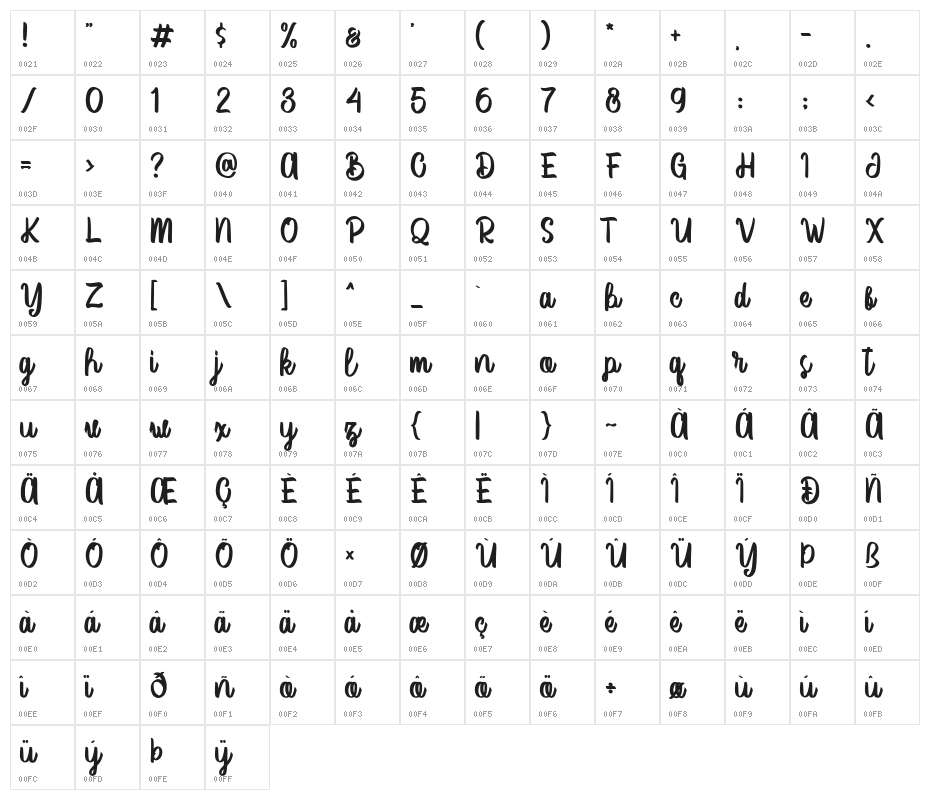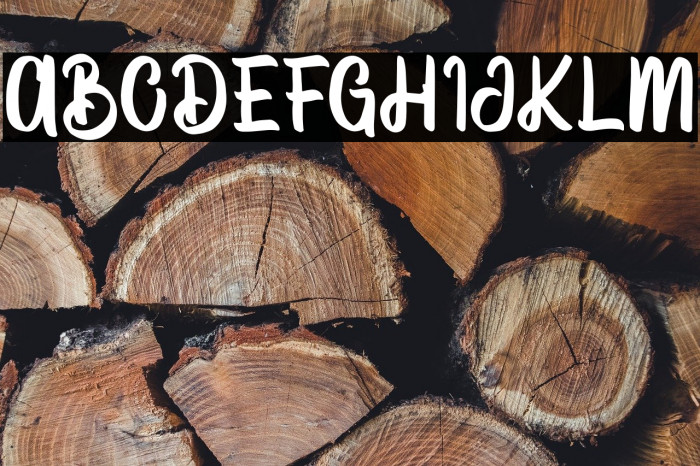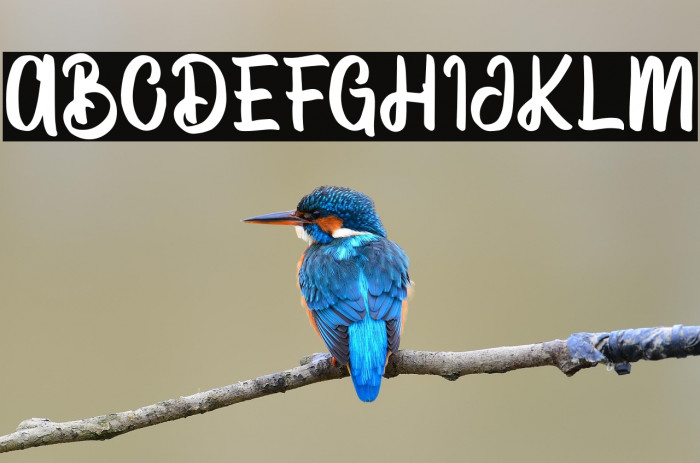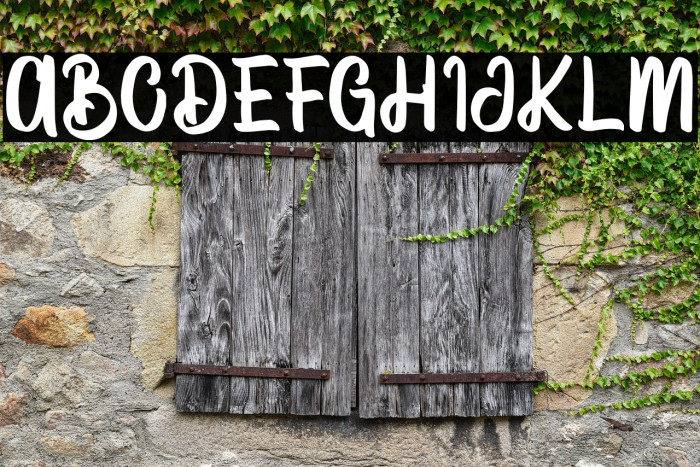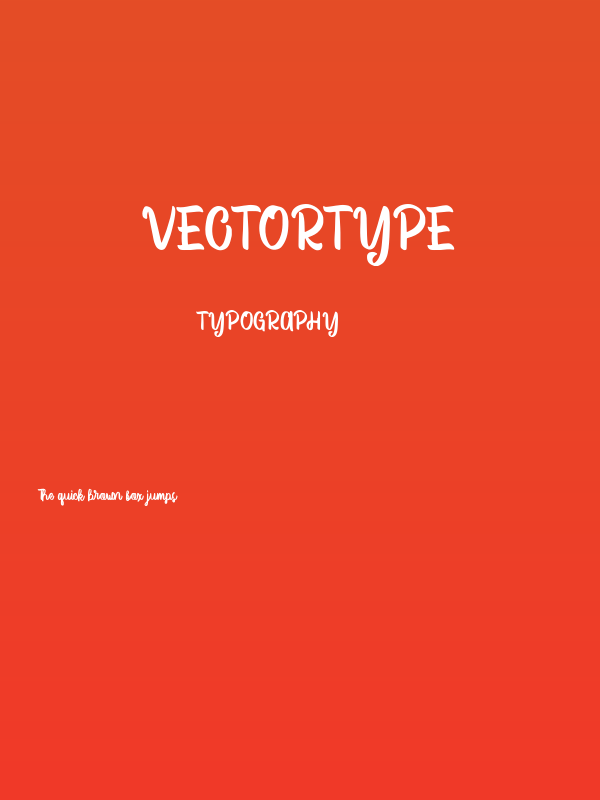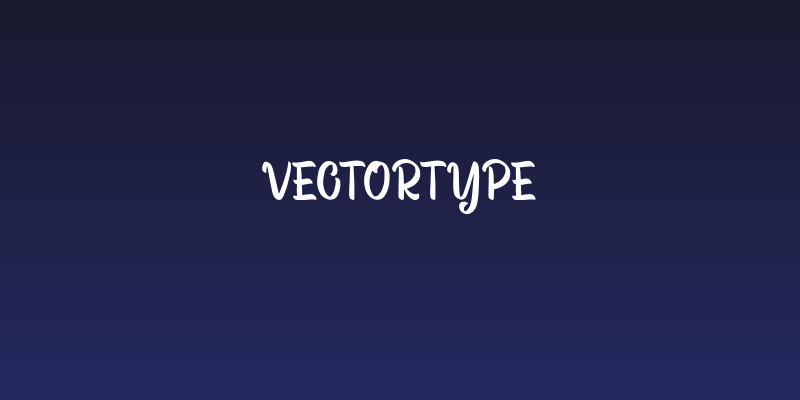
VectorType Font
VectorType Description
This font features a playful and bold handwritten style, characterized by its smooth, flowing curves and consistent stroke weight. The uppercase letters are slightly larger and more prominent, while the lowercase letters maintain a cohesive look with a slight slant, adding to the casual and friendly appearance. The numbers and special characters are designed to match the overall style, ensuring uniformity across all characters. The font's design is both approachable and versatile, making it suitable for a variety of creative projects.
| Overall Style | Playful |
| Use Case | Headlines, Logos, Invitations |
| Proposed Projects | Ideal for greeting cards, invitations, posters, and branding materials that require a friendly and approachable look. |